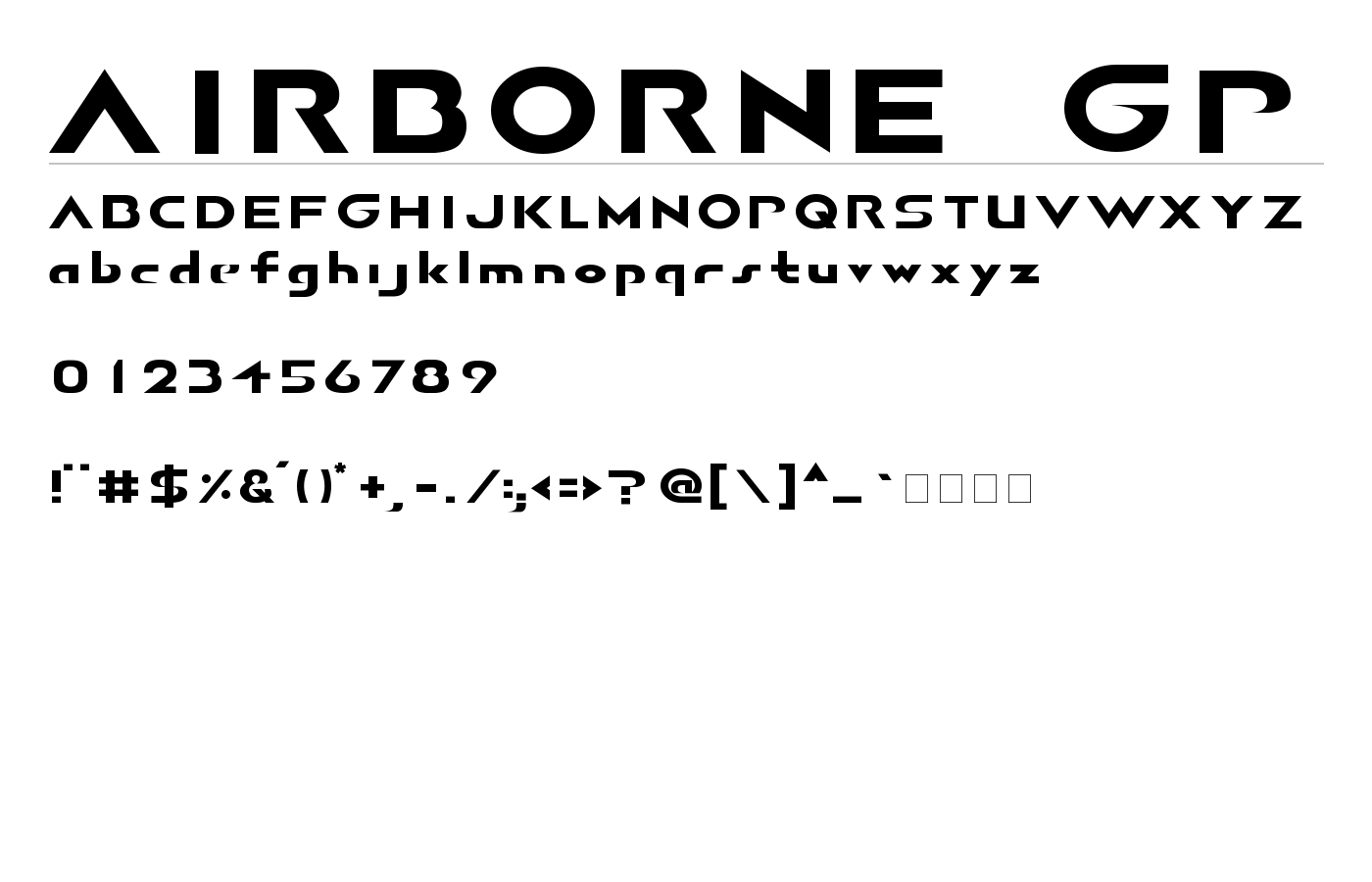
AIRBORNE GP is a bold, geometric sans serif font with a strong, modern personality and high contrast between its thick and thin strokes. Its sharp angles and stylized letterforms give it a futuristic and dynamic feel, making it ideal for technology, sports, and branding projects that need a sleek, attention-grabbing look. This font works best in headlines, logos, and display uses where its unique shapes can stand out.
AIRBORNE GP Font
About AIRBORNE GP Font
| Font family | AIRBORNE GP Font |
| Designer | Gustavo Paz L. |